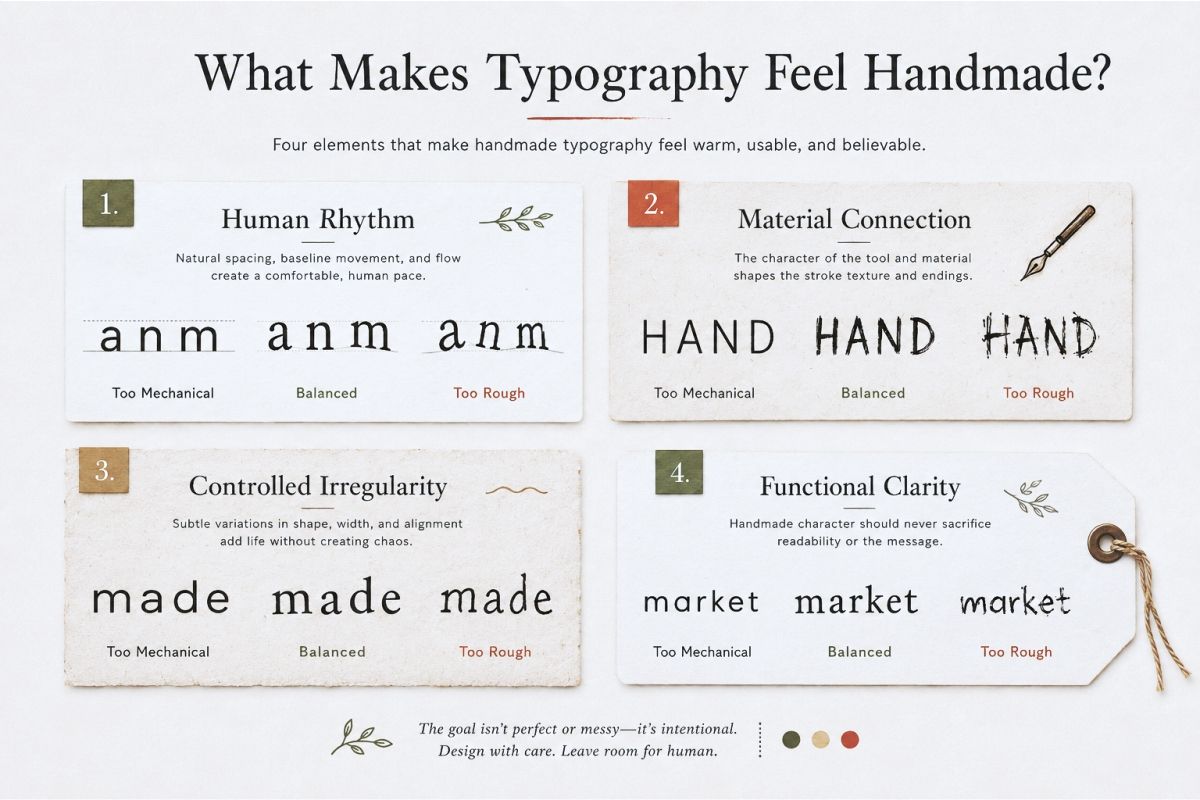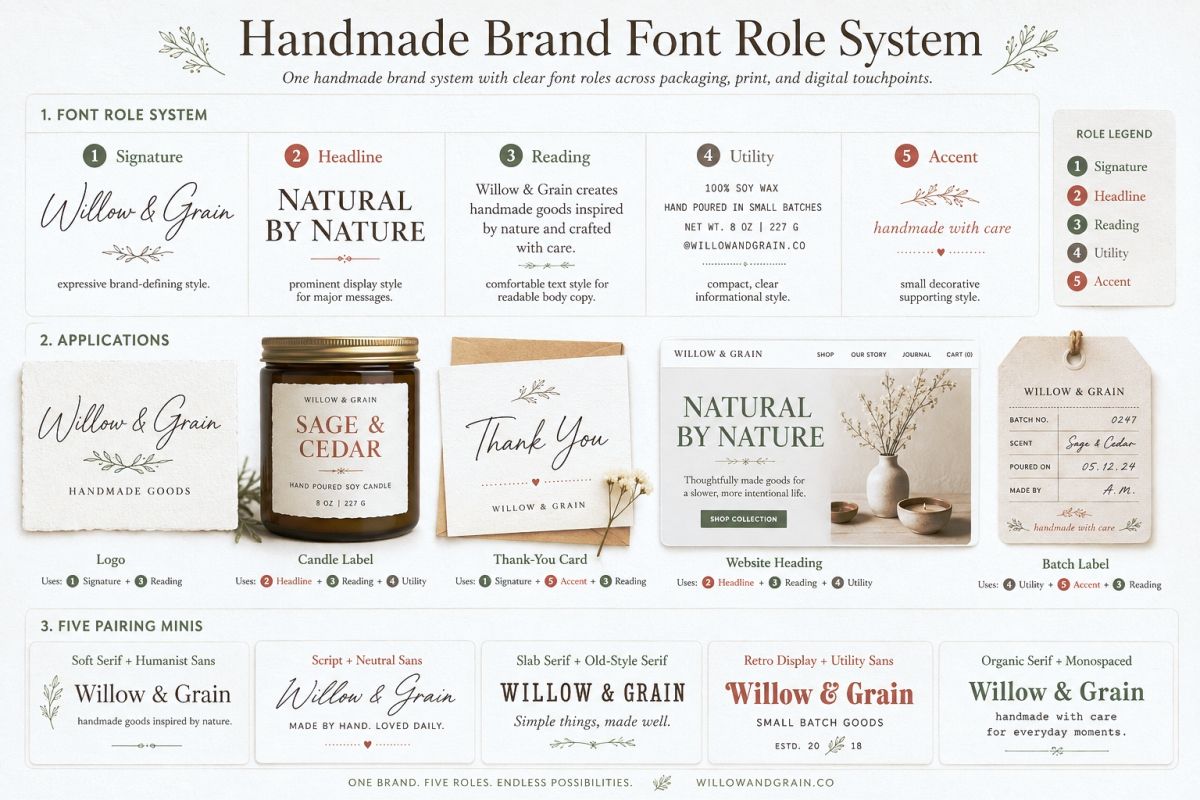
Fonts for Handmade Brands: Warm, Personal, and Authentic Styles
The best fonts for handmade brands do not simply look handmade.
They make the product feel considered.
A ceramic mug, hand-poured candle, embroidered bag, and small-batch jam may all be handmade. Yet they should not use the same visual language. Each product has its own material, process, price point, and personality.
That is why I would not begin by searching for a “rustic font” or “craft font.”
I would begin with the product itself.
How is it made?
How does it feel in your hand?
Who is it for?
What should a customer notice first?
Your typography should translate those answers into a recognizable visual voice.
In this guide, I will show you how to choose warm, personal, and authentic font styles without making your brand feel predictable. You will also learn how to build practical font pairings, test them on real packaging, and avoid common handmade branding clichés.
Handmade Does Not Automatically Mean Handwritten
A handwritten font can add personality. It can suggest direct human involvement and make a message feel less formal.
But handwriting is only one way to communicate craftsmanship.
A softly shaped serif can feel just as personal. A humanist sans serif can appear warm and approachable. Even a monospaced font can work for a handmade brand when it reflects workshop labels, batch numbers, or process documentation.
The goal is not to make every letter look imperfect.
The goal is to create the right kind of humanity.
I usually look for a combination of four qualities:
• A recognizable personality
• Comfortable, natural proportions
• Enough irregularity to avoid feeling mechanical
• Enough structure to remain professional
Too much polish can make a handmade brand feel mass-produced.
Too much irregularity can make it feel careless.
The strongest typography usually sits somewhere between those two extremes.
Start With the Making Process
Most font searches begin with mood words.
Warm. Rustic. Organic. Charming. Authentic.
Those words are useful, but they are still broad. You can make your direction more specific by studying the physical process behind the product.
A wheel-thrown bowl has a different rhythm from a hand-stitched notebook. Cold-process soap has a different character from custom silver jewelry.
Try translating the making process into typographic qualities.
Slow and tactile
Products shaped, stitched, carved, or painted by hand often suit typography with soft curves, visible stroke variation, and relaxed spacing.
Think about:
• Ceramics
• Knitted goods
• Hand-painted stationery
• Natural soaps
• Woven textiles
An old-style serif, gentle script, or organic sans serif can support this direction.
Precise and detailed
Some handmade products are personal but highly controlled.
Think about:
• Fine jewelry
• Leather accessories
• Bookbinding
• Miniature art
• Artisan perfume
These brands may need elegant serifs, restrained sans serifs, or refined scripts rather than visibly rough lettering.
Practical and workshop-inspired
Other products feel honest because their construction is visible.
Think about:
• Woodwork
• Screen-printed goods
• Hand tools
• Small-batch coffee
• Utility textiles
Sturdy slab serifs, condensed sans serifs, and monospaced accents can create a useful workshop character.
Playful and expressive
Handmade does not always mean neutral, earthy, or vintage.
Colorful clay objects, illustrated gifts, children’s products, and quirky accessories may benefit from chunky display fonts, casual lettering, and unusual proportions.
The right font should reflect how the object is made and how it fits into the customer’s life.
Eight Font Directions for Handmade Brands
There is no single handmade font category. I prefer to think in terms of directions.
Each direction communicates a different version of craftsmanship.
1. Soft Old-Style Serif
An old-style serif has visible stroke contrast, gently bracketed serifs, and proportions influenced by traditional writing tools.
It can feel established without becoming formal.
Best for:
• Ceramics
• Botanical products
• Artisan food
• Natural skincare
• Homeware
Use it when you want your brand to feel thoughtful, tactile, and quietly premium.
Pair it with a simple humanist sans serif for ingredients, product details, and website copy.
2. Relaxed Handwritten Script
A relaxed script can suggest personal notes, signatures, labels, and direct communication from the maker.